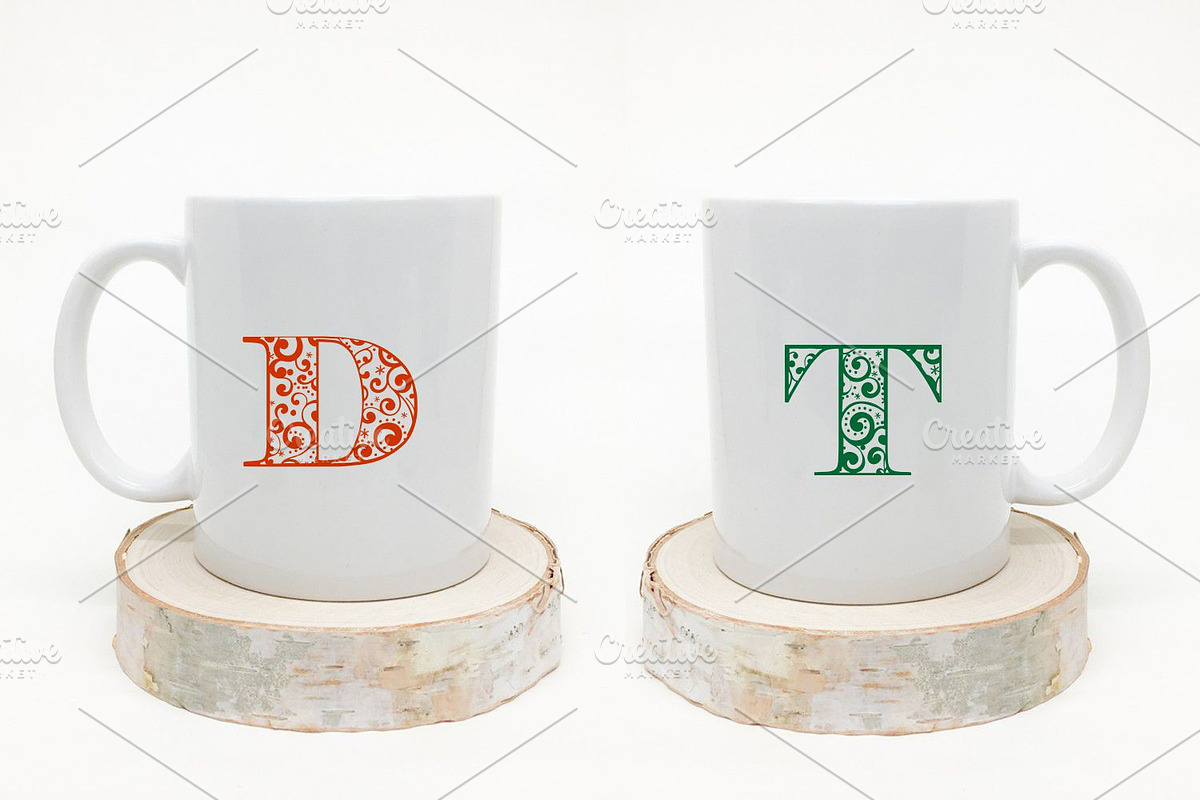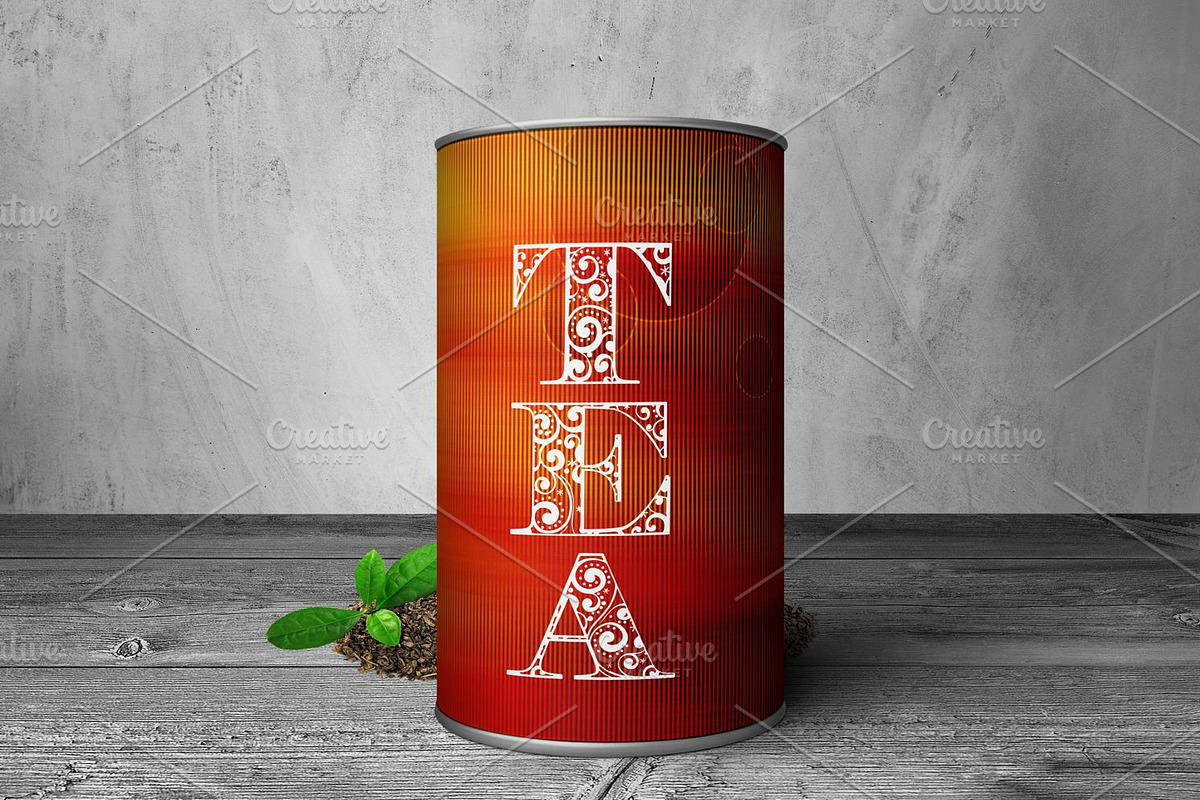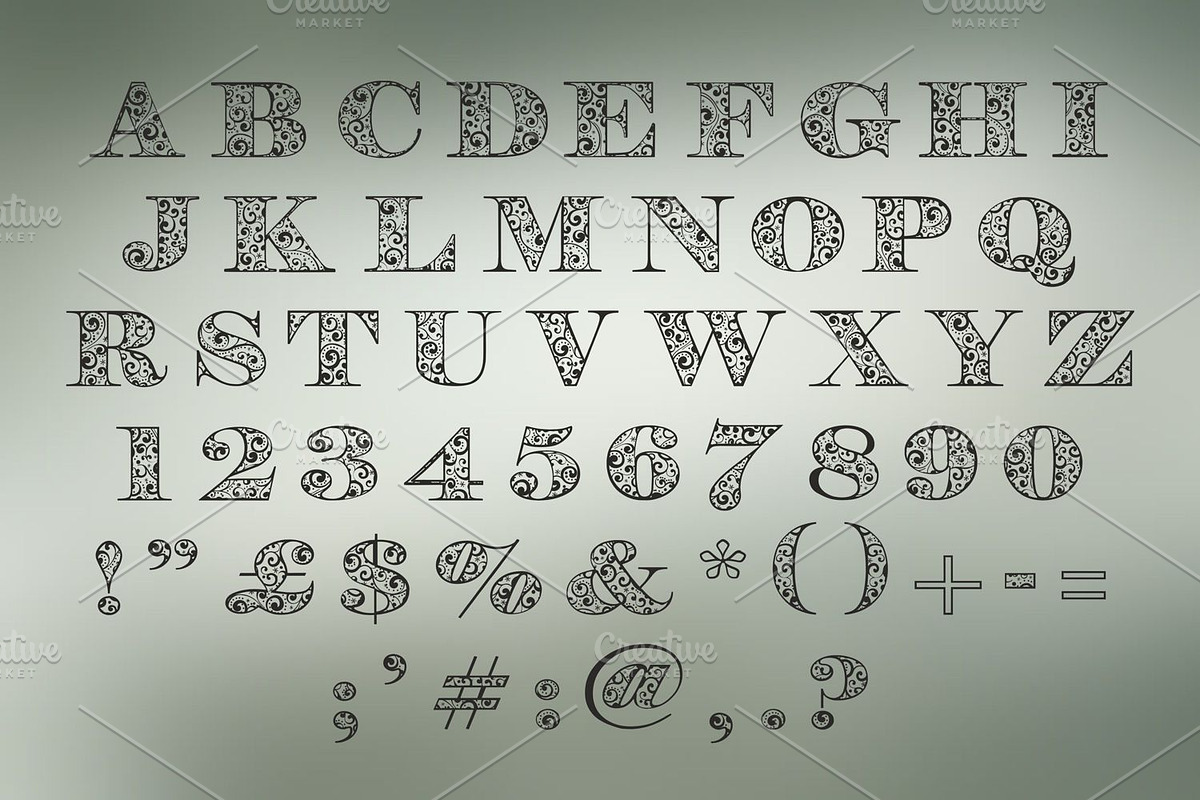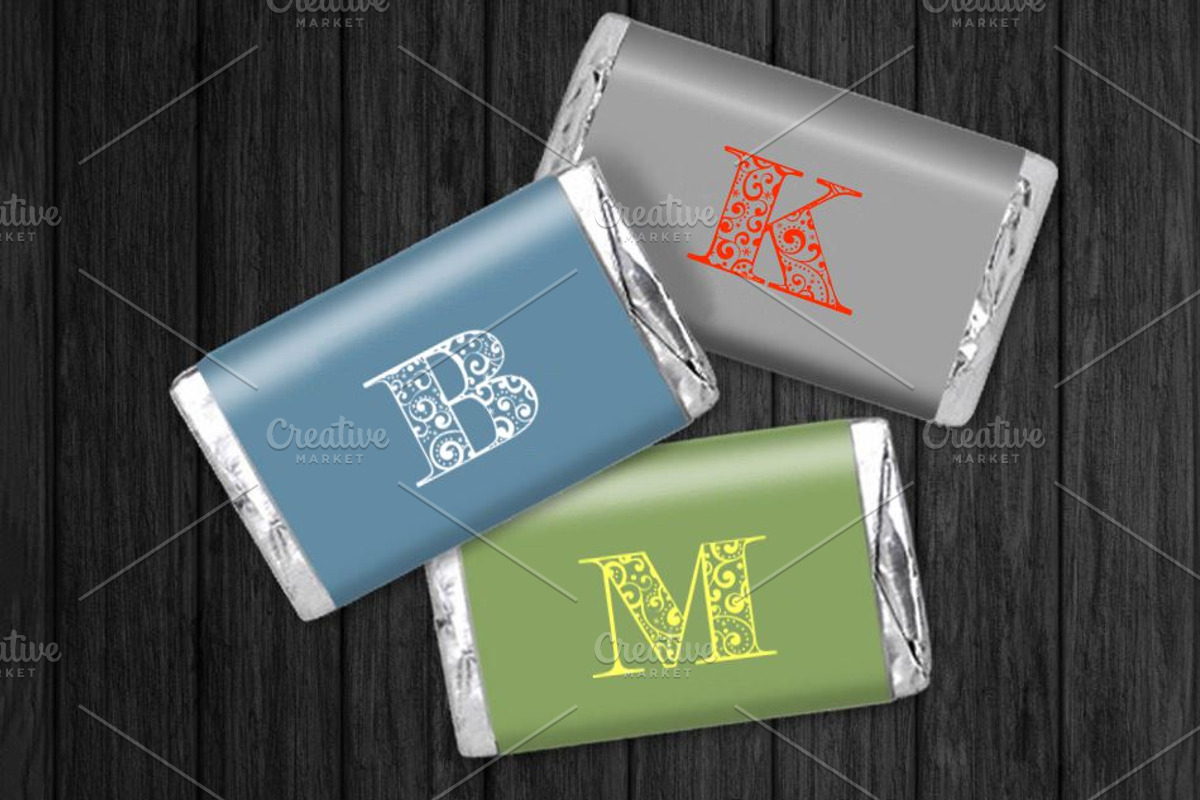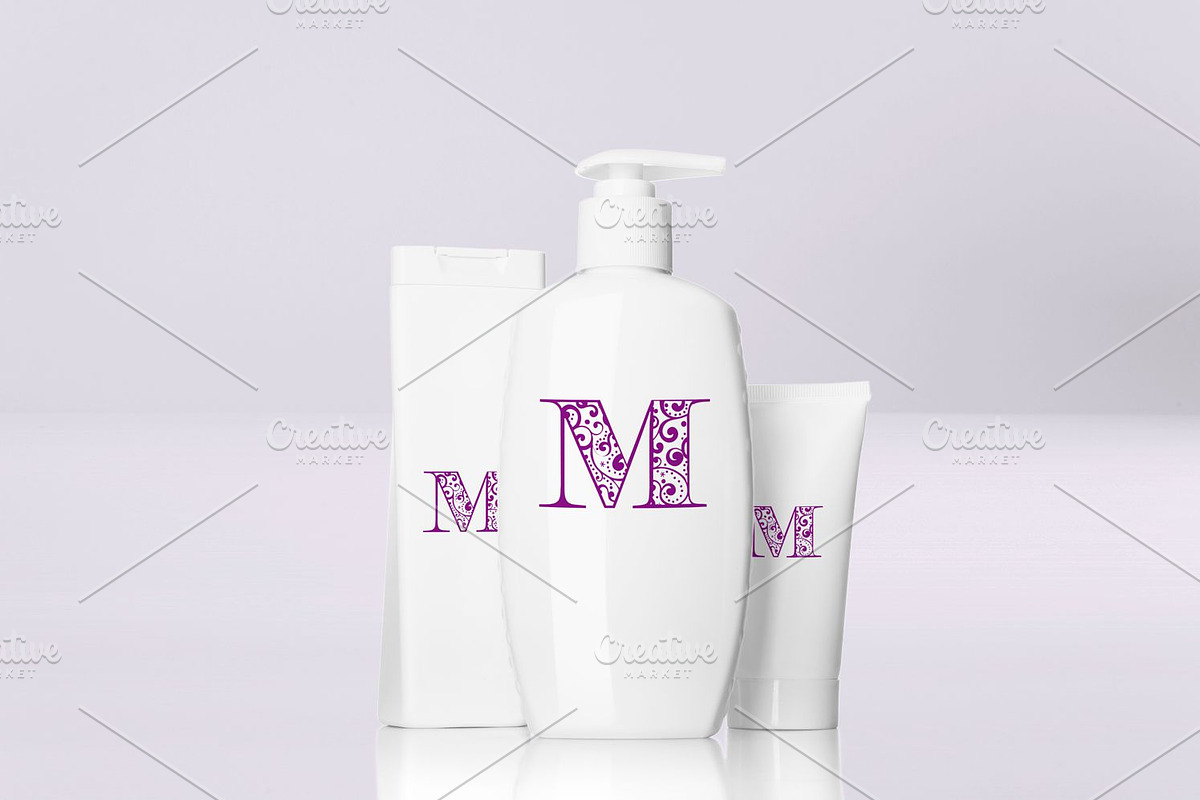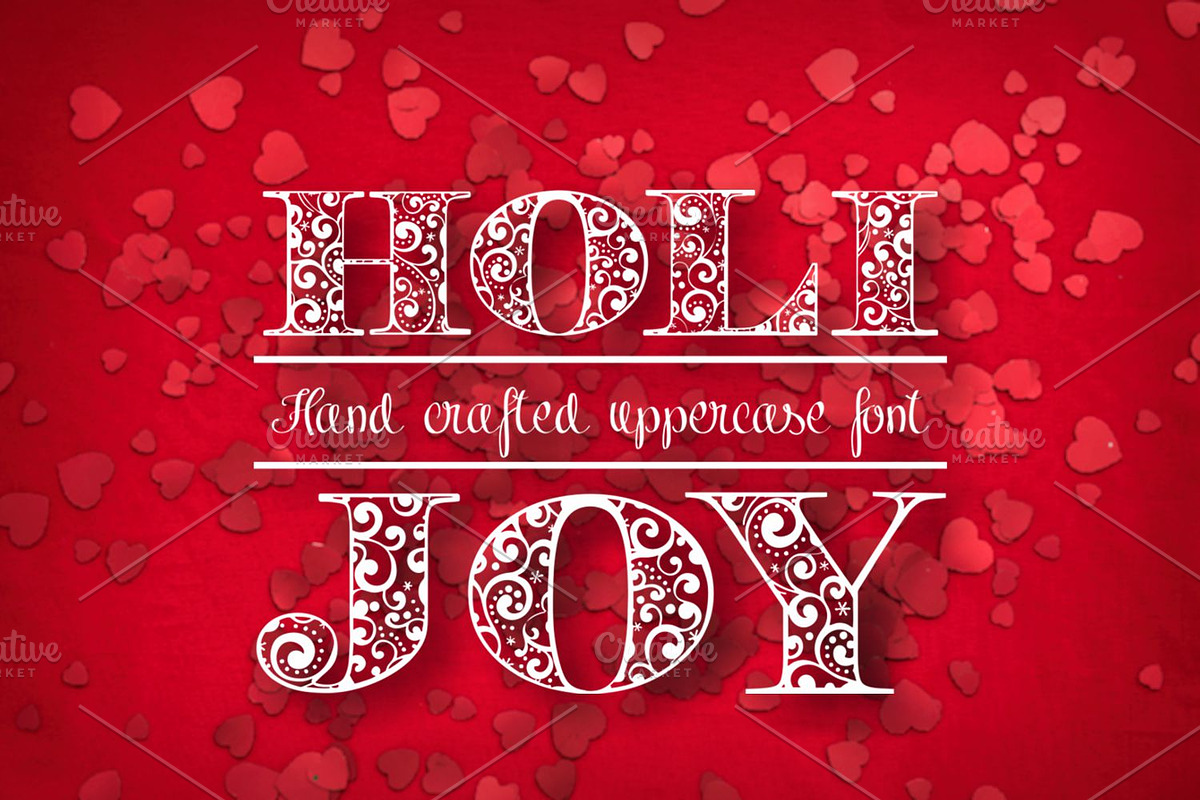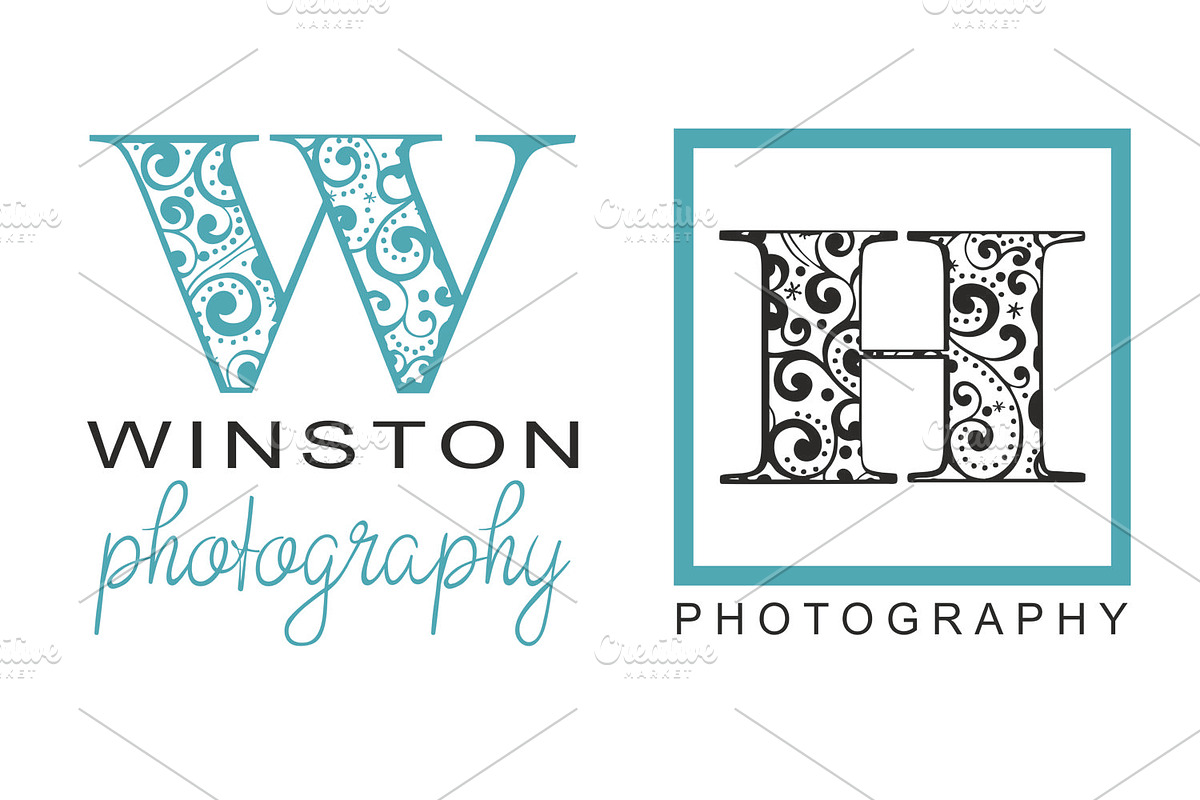
Holijoy
Introducing Holijoy - a hand crafted uppercase font.
Why Holijoy is worth a look
Holijoy by Digital Typeface Studio fits naturally into Branding, posters, packaging, typography.